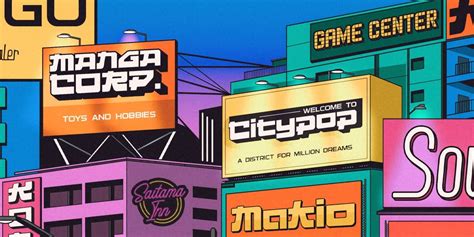
Grab Free Japanese Fonts: Design Like A Pro!
Grab Free Japanese Fonts: Design Like a Pro!\n\nWhen you’re diving into the world of design, guys , there’s nothing quite like finding the perfect typeface to make your projects pop. And when it comes to adding a unique, elegant, or even playful touch, nothing beats a free Japanese font . Seriously, whether you’re crafting an eye-catching logo, designing a cool poster, or even just sprucing up your personal blog, these fonts can elevate your work from ‘meh’ to ‘marvelous’. The sheer variety of free Japanese fonts available is astounding, offering everything from traditional brush strokes that evoke ancient calligraphy to sleek, modern styles perfect for a tech startup. Imagine adding that authentic touch to your next manga-inspired art piece or giving your cultural event flyer that extra something special. Downloading free Japanese fonts isn’t just about saving a few bucks; it’s about unlocking a whole new realm of creative possibilities without breaking the bank. So, if you’re ready to inject some serious style into your designs, stick with us, because we’re about to show you exactly how to grab free Japanese fonts and design like a true pro! We’ll cover everything from why you should consider these amazing resources to how to properly install and use them, ensuring your creative journey is as smooth as silk. Get ready to explore a treasure trove of typographic wonders that will truly set your work apart.\n\n## Why Download Free Japanese Fonts? Boost Your Creative Projects!\n\nLet’s be real, guys , every designer, hobbyist, or content creator is always looking for ways to make their work stand out without draining their wallets. That’s where downloading free Japanese fonts comes into play, offering an incredible advantage. These fonts aren’t just for people working explicitly with the Japanese language; they offer a unique aesthetic that can enhance a vast array of projects. Think about it: a beautifully crafted free Japanese font can instantly add a touch of exotic elegance, a feeling of modern minimalism, or even a splash of playful cuteness to your designs. Are you working on a website that needs a fresh, global feel? Or perhaps you’re creating invitations for a themed party, designing custom t-shirts, or even developing a game? A Japanese typeface can provide that distinctive visual flair you’re seeking. The versatility is truly astonishing, making these free resources invaluable. Many designers overlook the potential of non-Latin fonts, but trust us, embracing these styles can seriously differentiate your portfolio.\n\nBeyond the aesthetic appeal, the practicality of free Japanese fonts is undeniable. High-quality fonts, especially those with extensive character sets like Japanese, can often come with a hefty price tag. For those just starting out, or even seasoned pros on a budget, downloading free Japanese fonts means you can experiment, iterate, and refine your designs without any financial commitment. This freedom allows for greater creative exploration. You can try out different styles, see how they interact with your existing design elements, and truly discover what works best for your specific project without feeling like you’re wasting money on a font that might not fit. It’s about empowering your creativity by removing barriers. Imagine the possibilities for branding, marketing materials, social media graphics, educational content, or even personal scrapbooking projects. The ability to access a diverse range of high-quality Japanese fonts for free is a game-changer for anyone looking to add a professional, international touch to their work. These fonts are often developed by passionate designers and shared with the community, meaning you’re getting artistic quality without the commercial cost. So, next time you’re brainstorming a design, don’t forget to consider how a perfectly placed free Japanese font could transform your vision into something truly remarkable and memorable. It’s an easy, accessible way to elevate your design game significantly and effectively broaden your creative toolkit.\n\n## Understanding Japanese Font Types: A Quick Guide\n\nBefore you dive headfirst into downloading free Japanese fonts , it’s super helpful, guys , to have a basic grasp of the different Japanese font types available. Understanding these styles will not only help you choose the perfect free Japanese font for your project but also ensure you’re using them appropriately and effectively. Japanese writing involves three main scripts: Kanji (logographic characters derived from Chinese), Hiragana (phonetic script used for native Japanese words and grammatical elements), and Katakana (phonetic script used for foreign words, onomatopoeia, and emphasis). A complete Japanese font typically includes all three, alongside Latin characters and punctuation. When you’re looking for a free Japanese font , you’ll often encounter several broad categories that define their aesthetic and usage.\n\nFirst up, we have Mincho (明朝体) . Think of Mincho as the Japanese equivalent of a serif font in English. It’s characterized by thin horizontal strokes and thicker vertical strokes, with serifs (or ‘uroko’ – scales) at the end of strokes. Mincho fonts have a classic, elegant, and traditional feel, making them perfect for formal documents, books, newspapers, and anything requiring a sophisticated touch. If you’re aiming for a refined and authoritative look with your free Japanese font , a Mincho style is often your best bet. Then there’s Gothic (ゴシック体) , which is akin to a sans-serif font. Gothic fonts have strokes of uniform thickness, giving them a clean, modern, and sturdy appearance. They are highly legible and widely used for headlines, signage, web content, and casual text. Within Gothic, you might find Maru Gothic (丸ゴシック体) , which features rounded stroke terminals, giving it a softer, friendlier, and more approachable feel, ideal for children’s books, casual branding, or any design needing a gentler vibe. These are fantastic options if you need a versatile and readable free Japanese font for digital or print media. Beyond these foundational styles, you’ll also discover more artistic and expressive Japanese font types . These include Brush (筆記体) or Calligraphy (書道) fonts, which mimic handwritten brush strokes, conveying a sense of artistry, tradition, or energetic movement. These are excellent for titles, artistic projects, or designs that require a strong emotional impact. There are also Pop (ポップ体) fonts, which are often whimsical, decorative, and playful, perfect for fun designs, comics, or informal communications. Understanding these distinct characteristics will empower you to make informed choices when you download free Japanese fonts , ensuring your chosen typeface perfectly complements your creative vision and effectively communicates your message. So, take your time, explore the nuances, and pick the best free Japanese font that speaks to your project’s soul!\n\n## Where to Find Your Next Favorite Free Japanese Font\n\nAlright, guys , now that you know why free Japanese fonts are awesome and what kinds of styles are out there, the big question is: where do you actually find them? Good news! There are plenty of fantastic places online where you can download free Japanese fonts without much hassle. However, it’s crucial to stick to reputable sources to avoid any nasty surprises like malware or, more importantly, licensing issues. We’ll get into licensing a bit later, but for now, let’s explore some top spots where you can hunt for your next favorite free Japanese font . Finding the right source is key to ensuring you get high-quality, usable typefaces that will truly enhance your designs.\n\nOne of the most accessible and trustworthy places to start your search is Google Fonts . While their Japanese selection might not be as vast as their Latin counterparts, what they do offer is usually of excellent quality and, crucially, comes with very clear, permissive licenses (often SIL Open Font License or Apache License 2.0), making them suitable for both personal and commercial use. Simply head over to fonts.google.com, use the language filter to select